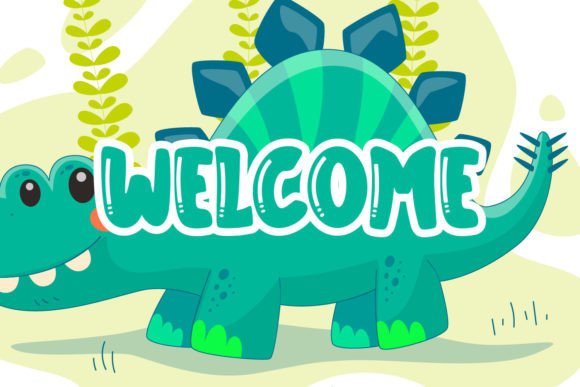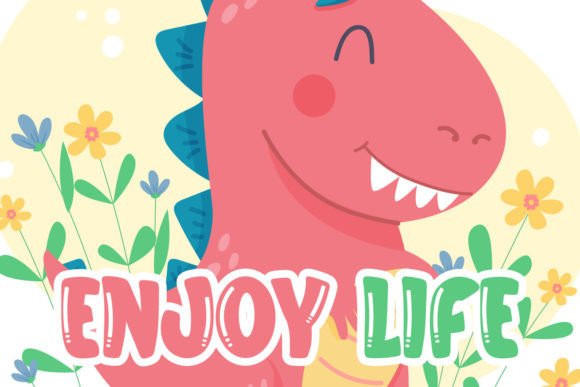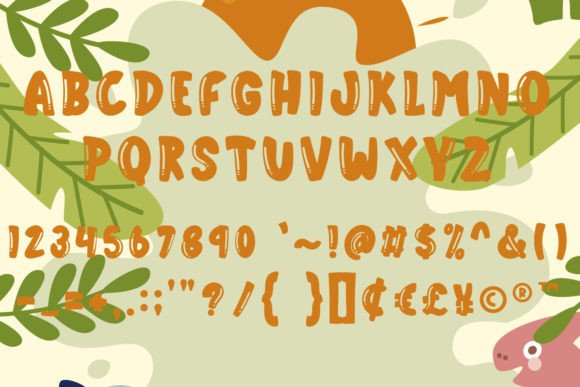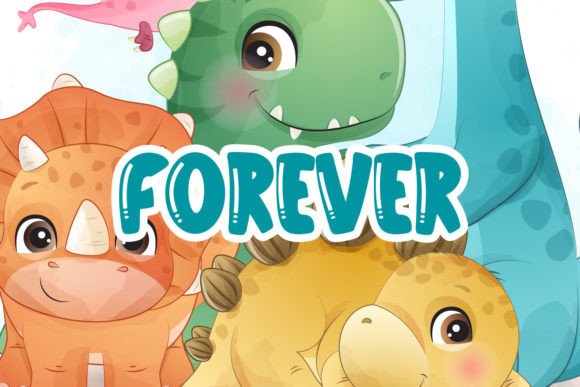
Get Ready to Roar with Creativity: Discover the Dinosaur Font
Have you ever been working on a project, scrolling through fonts, and suddenly, the perfect one jumps out at you? That’s exactly what happened to many designers when they discovered the Dinosaur Font. This playful and cute display font is perfect for adding a special retro touch to any design idea.
Masterfully designed to bring your creative ideas to the highest level, the Dinosaur Font is a true favorite among designers. Its unique style and charm make it a valuable addition to any design project. Whether you’re working on a graphic design, digital art, or even a logo, the Dinosaur Font is sure to add that extra oomph to make your project stand out.
Dinosaur Font Key Features
- Unique Characteristics: The Dinosaur Font features a unique, hand-drawn design with a playful and whimsical feel, perfect for adding a touch of fun and personality to any text-based project.
Dinosaur Font Review
First off, I want to say that I love the creativity behind this font. It’s a unique take on the classic font styles we’re used to seeing, and I appreciate the nod to our prehistoric past. ✨ The bold, playful lines and shapes really do evoke a sense of dinosaurs and the wild, wild west.
One thing that I think really works well for this font is its ability to add a touch of whimsy and fun to any design project. Whether it’s a children’s book, a theme park advertisement, or a quirky blog post, this font is sure to add a level of personality and charm that’s hard to find elsewhere. ✨
- ⚠️ The font may be a bit too playful for more serious or professional designs. While it’s perfect for a fun, lighthearted project, it may not be the best choice for something like a corporate report or a news article.
- ⚠️ Some of the letters may be a bit difficult to read, especially at smaller font sizes. This could be a problem for designs that require a lot of text.
Overall, I think the Dinosaur Font is a fun and creative addition to any designer’s toolkit. While it may have some limitations, it’s perfect for the right project and can add a level of personality and charm that’s hard to find elsewhere. If you’re looking for a unique font to add some whimsy to your designs, this is definitely worth considering.
Dinosaur Font: A Practical Application Guide
For a more authentic look, pair the Dinosaur Font with distressed textures and earthy colors.
Use the font for titles, headings, and emphasis to create a visually appealing design.
The Dinosaur Font is perfect for:
Prehistoric-themed designs and branding.
Children’s educational materials and books.
Retro and vintage-inspired designs.